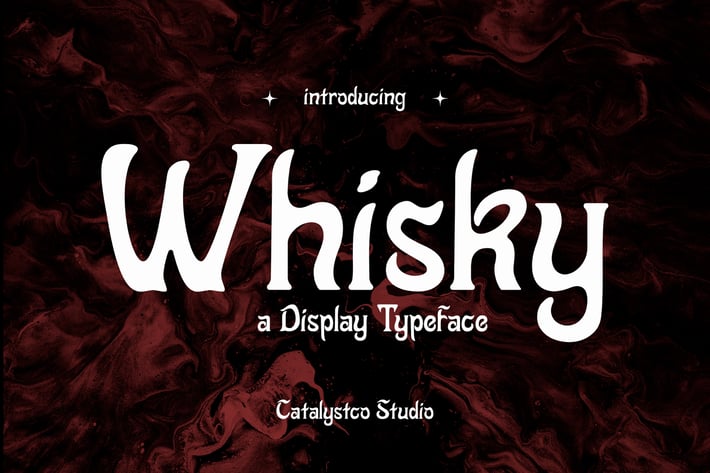
Whisky Display Typeface Font
Whisky is a gothic-inspired display typeface featuring rustic curves, retro serif structure, and expressive handcrafted forms. Its letterforms combine mystical vintage aesthetics with subtle western and horror nuances, creating a dramatic and atmospheric personality. The organic strokes, unique terminals, and elegant yet rugged detailing make it stand out in headings, logotypes, posters, and branding that demand strong character.
Designed as a premium display font, Whisky delivers a balance of classy gothic charm and bold retro serif presence. Perfect for designers seeking a distinctive typeface with gothic horror appeal, rustic flair, and expressive visual storytelling. Complete with uppercase, lowercase, numerals, punctuation, and multilingual elements, this font supports a wide range of creative projects and modern design needs.
Whisky is perfect for gothic posters, horror titles, rustic branding, western-style logos, fantasy themes, celebration artwork, vintage packaging, premium label design, editorial headlines, merchandise typography, retro serif compositions, and expressive creative projects that need bold, atmospheric visual character.